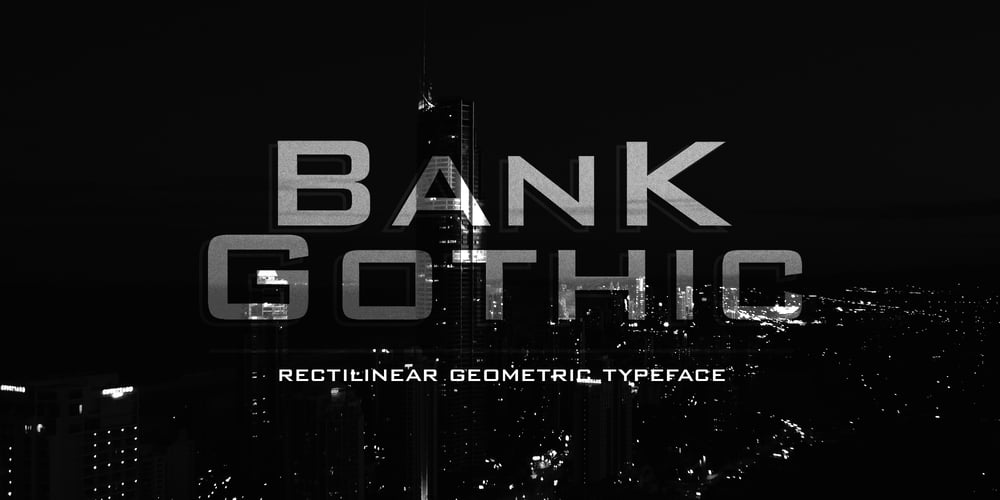
Bank Gothic Font Family was designed by Morris Fuller Benton and published by Bitstream. Bank Gothic contains 2 styles and family package options. A set of square capitals developing from the interest in geometric forms stimulated by the Bauhaus, Bank Gothic was designed by Morris Fuller Benton for ATF in 1930, the same year that Georg Trump designed City for Berthold.